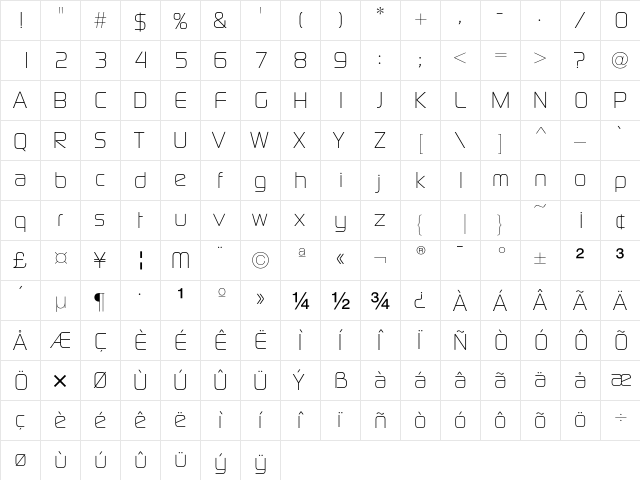
Digital Lgt
Design Context for Digital Typeface
Digital channels digital-age aesthetics through its sharp, structured letterforms — ideal for brands that want to signal innovation.
Pro Tip: Try Digital with generous letter-spacing in UI labels and navigation — the geometric forms benefit from room to breathe.